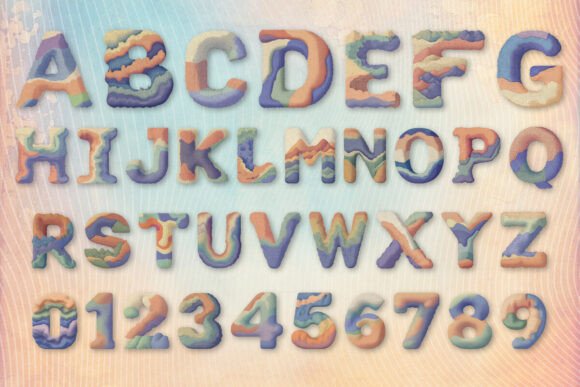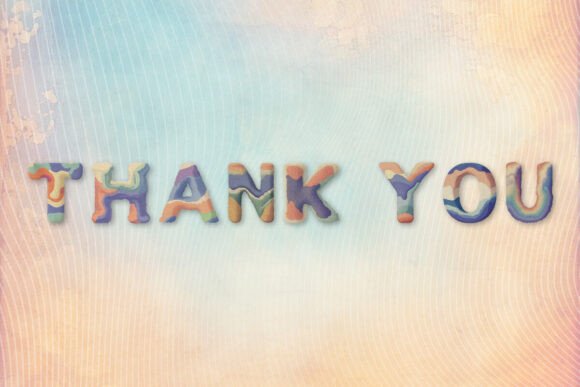
Introducing the Gradient Pastel Font: A Serene and Stylish Addition to Your Typography Collection
Are you a designer or crafter looking for a font that conveys a sense of tranquility and warmth? Look no further than the Gradient Pastel Color Alphabet, a beautiful and unique font that combines style and subtlety. This charming font collection features 36 unique characters, including 26 artistically crafted letters and 10 numbers, all brushed with a soft pastel color palette.
A Perfect Blend of Style and Subtlety
The Gradient Pastel Font is perfect for designers who want to add a touch of elegance and sophistication to their work. The soft pastel colors used in this font are calming and soothing, making it ideal for designs that require a sense of serenity and peacefulness. Whether you’re working on a branding project, a website design, or a craft project, this font is sure to impress.
Key Features of the Gradient Pastel Font
- 36 unique characters: The Gradient Pastel Font includes 26 letters and 10 numbers, providing you with a wide range of options for your designs.
- Soft pastel color palette: The font features a beautiful soft pastel color palette that adds a touch of warmth and elegance to any design.
What Makes the Gradient Pastel Font So Special?
The Gradient Pastel Font is a truly unique and special font that offers a range of benefits to designers and crafters. Here are just a few reasons why you should consider adding it to your font collection:
- Unique and eye-catching: The Gradient Pastel Font is a one-of-a-kind font that is sure to grab attention and make your designs stand out.
- Versatile: The font is versatile and can be used for a wide range of designs, from branding and advertising to website design and crafting.
- Easy to read: The font is easy to read, making it perfect for designs that require a clear and concise message.
- Customizable: The font is customizable, allowing you to adjust the color and style to suit your design needs.
The Gradient Pastel Font is a beautiful and unique font that is perfect for designers and crafters who want to add a touch of elegance and sophistication to their work. With its soft pastel color palette and elegant style, this font is sure to impress. Whether you’re working on a branding project, a website design, or a craft project, the Gradient Pastel Font is a great choice. So why wait? Download the Gradient Pastel Font today and start creating stunning designs that will leave a lasting impression.